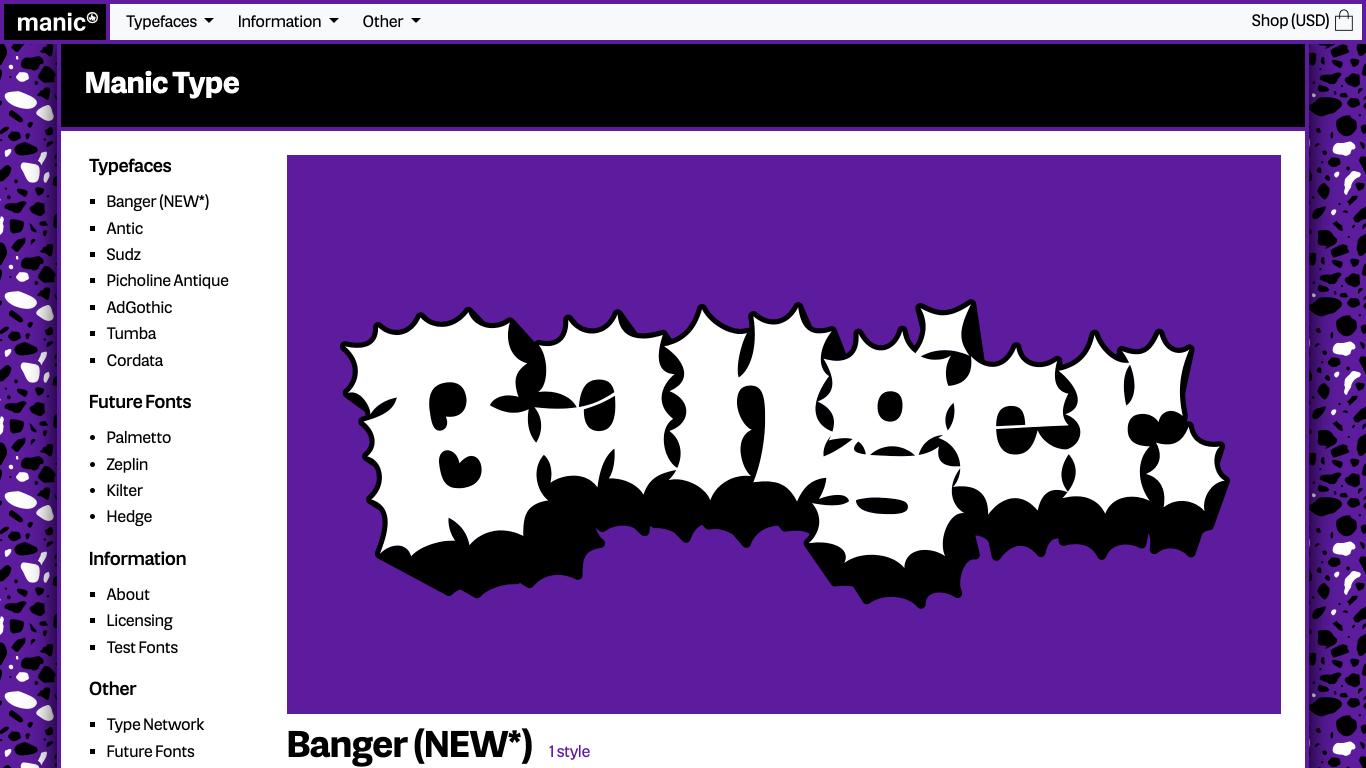
Manic Type
Canada
2022
Manic Type is a Toronto-based independent type foundry founded in 2022 by Jamie Chang. The studio focuses on expressive, experimental type design that explores the tactile and emotional qualities of letterforms. Its name is inspired by the "manicule" symbol, underscoring a deep interest in the physical and symbolic gestures of typography. As a foundry partner with Type Network and Future Fonts, Manic Type has released standout typefaces such as Banger, Antic, Sudz, Picholine Antique, and AdGothic—ranging from thorny blackletter to playful graffiti and quirky grotesques.